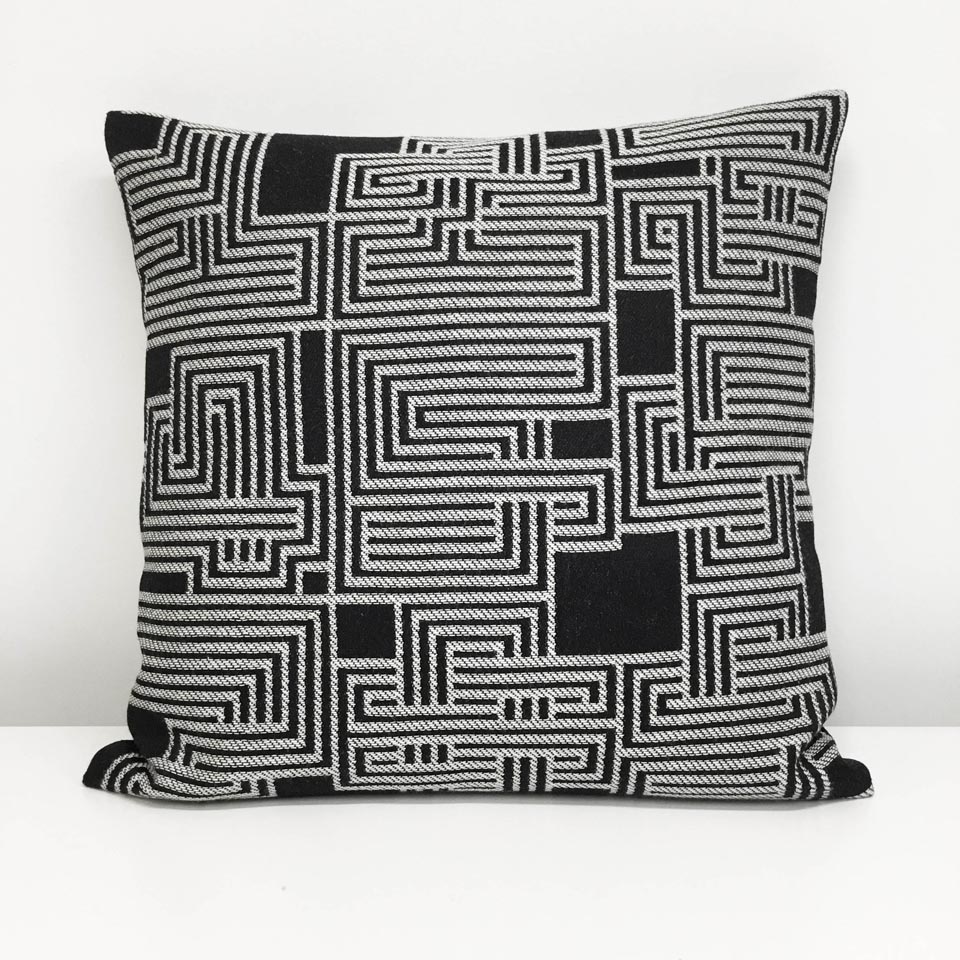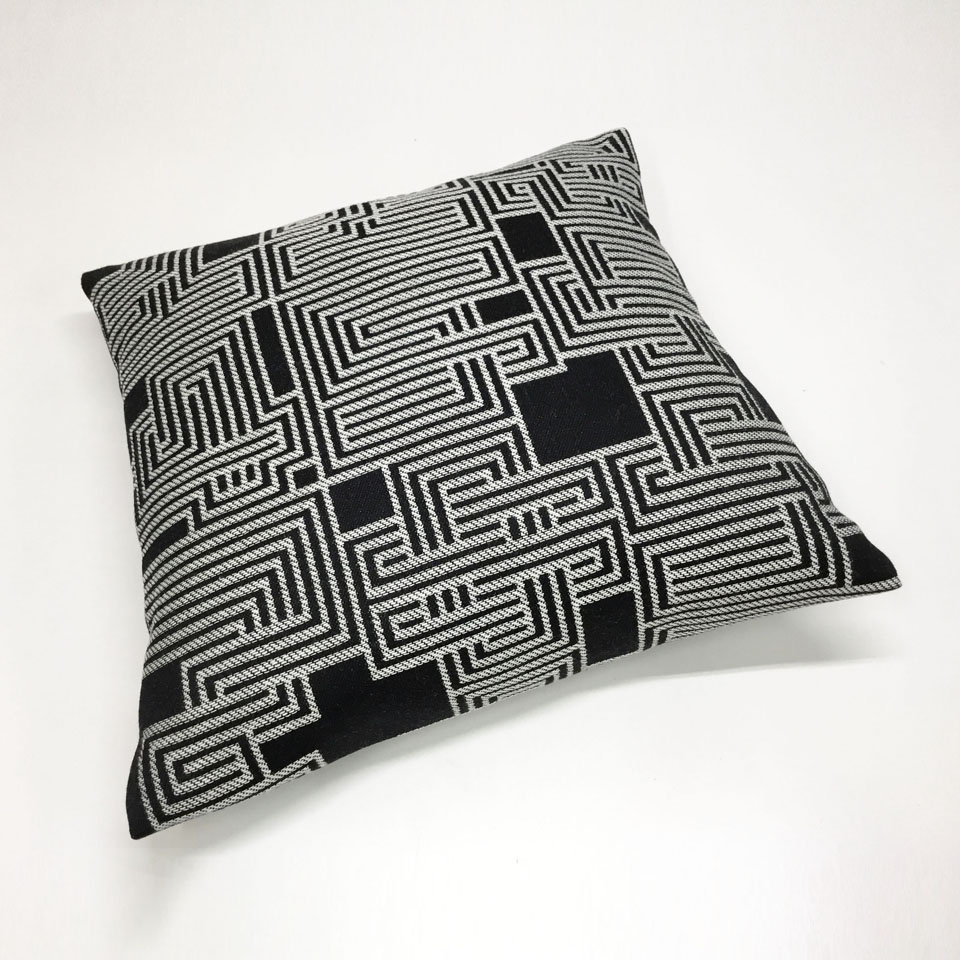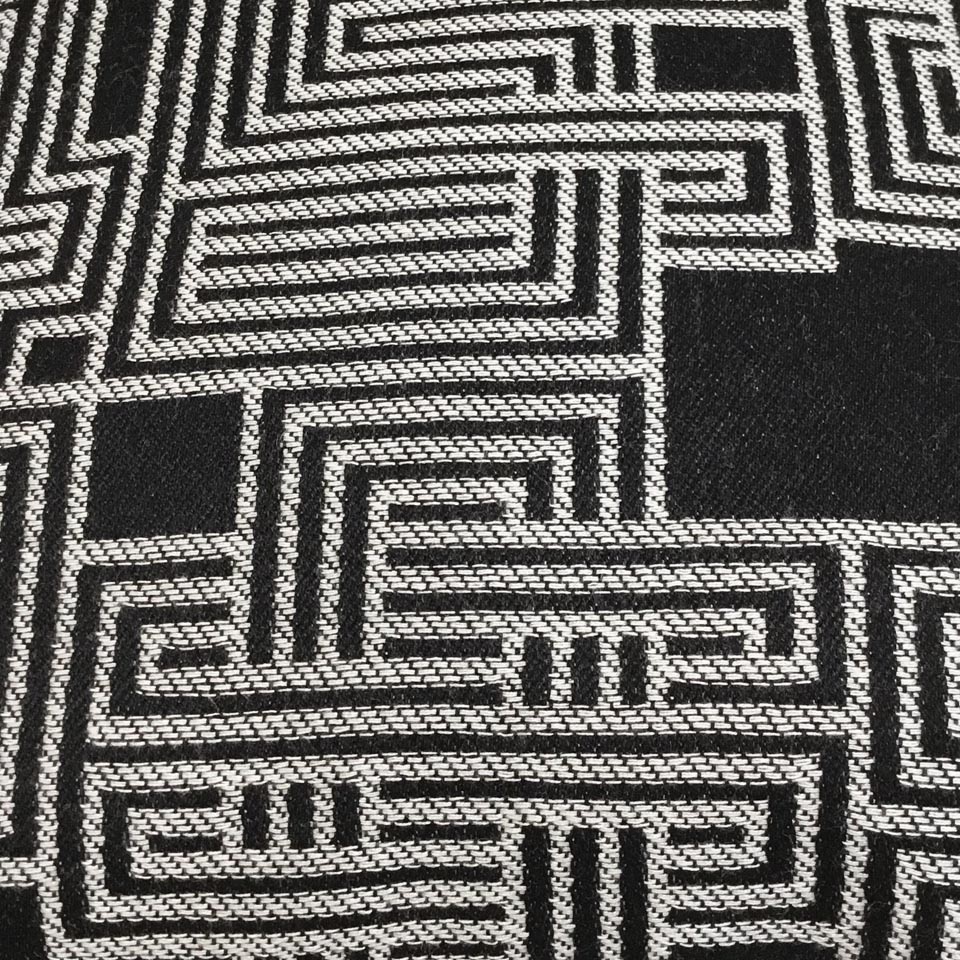
“123456789” Numbers Pillow
The fabric pattern features monospaced numbers, with the numbers 1-9, composed from lines and outlines that intertwine. Custom woven on a jacquard loom.